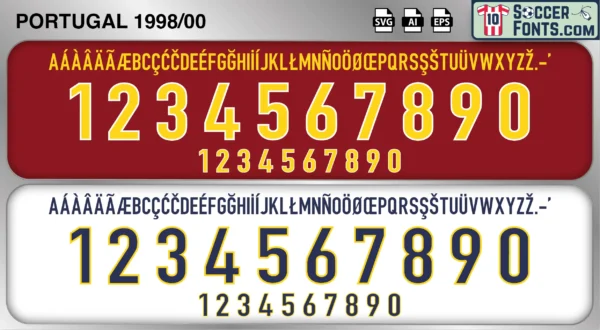
Portugal 1998-00 Font
The Portugal 1998-00 font is an editable soccer jersey lettering design in vector format inspired by the Portugal kit style used during the 1998-00 football seasons. This football font artwork is prepared for football shirt recreations, custom jersey projects, football kit mockups and sports graphic design workflows.
The 1998-00 period marked the emergence of a new generation that would transform Portuguese football in the years ahead. Although Portugal did not qualify for the 1998 FIFA World Cup, the national team entered a period of rapid development built around players who had previously achieved success at youth international level. Footballers such as Luís Figo, Rui Costa, João Pinto, Fernando Couto, Paulo Sousa and Sérgio Conceição formed the backbone of a talented squad determined to return Portugal to the biggest stages of international football. The nation’s football culture was thriving, with Portuguese clubs competing strongly in European competitions and producing technically gifted players admired throughout the continent.
The Portugal 1998-00 font became associated with the road toward UEFA EURO 2000, a tournament that would announce Portugal’s return among Europe’s elite national teams. During qualification and preparation, the squad developed an exciting identity based on creativity, technical quality and attacking football. Portugal shirts from this era remain highly collectible because of their connection with Luís Figo and one of the most influential generations in the country’s football history. The Portugal 1998-00 font reflects a period of optimism and growth, capturing the beginning of a golden era that would shape Portuguese football for more than a decade and inspire future generations of players and supporters.